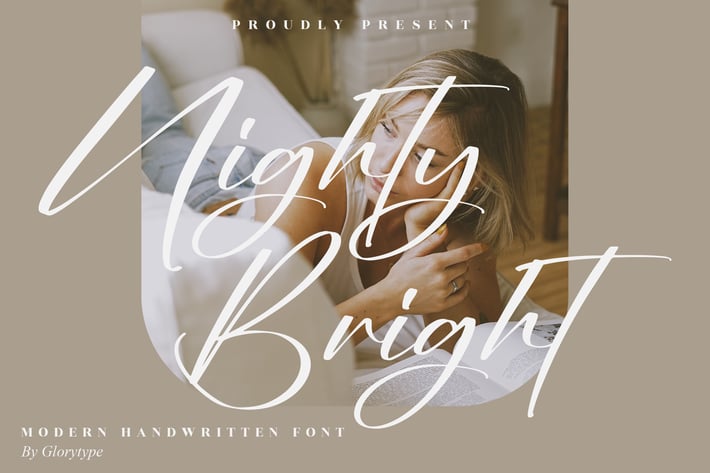
Nighty Bright Modern Handwritten Font
Nighty Bright is a modern handwritten signature font with silky strokes and graceful curves. It brings an elegant, personal touch to anything from brand marks and packaging to event stationery and social media quotes. Designed to be both stylish and readable, Nighty Bright slips seamlessly into print and web projects that need a refined, contemporary script.
+ Smooth, flowing letterforms with natural handwriting feel
+ Alternates & ligatures for authentic variation
+ Complete A–Z, a–z, numerals & punctuation
+ Multilingual support
+ Optimized kerning and balanced contrast for legibility
Let your words glow—add effortless elegance with Nighty Bright.